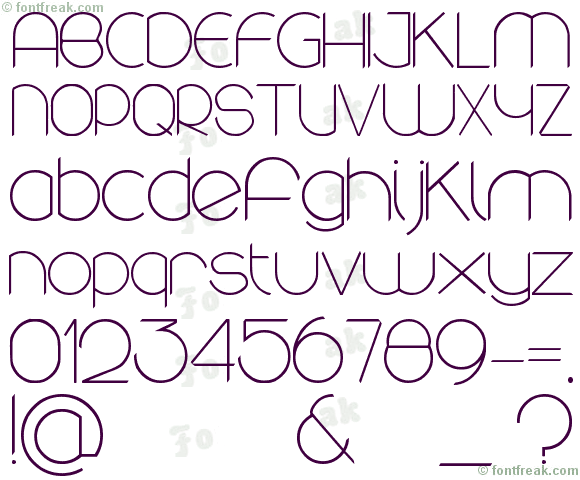
round
Discover the "round" font by Fran Board, a versatile typeface that effortlessly combines modern aesthetics with a friendly appeal. This sans-serif font, designed in 2009, is characterized by its soft, rounded edges and consistent stroke weight, creating a harmonious look that is both approachable and professional. The visual simplicity of the "round" font is enhanced by its minimal contrast and spacious letterforms, making it legible and easy to read at various sizes.
Ideal for a range of applications, the "round" font is perfect for branding your company, crafting engaging restaurant menus, designing eye-catching posters, or creating memorable wedding invitations. Its contemporary style resonates well with graphic designers and small business owners looking to establish a distinctive identity. Content creators will also find this font a valuable addition to their toolkit, as it adds a touch of warmth to any digital or printed material.
What truly sets the "round" font apart is its versatility and charm. The soft curves and balanced proportions make it suitable for both playful and serious contexts, appealing to a wide audience. Whether you are launching a new product line or designing a personal project, this font brings a unique touch that can elevate your work. With its freeware license, the "round font free download" option allows users to easily incorporate this stunning typeface into their projects without the burden of licensing fees. Embrace the friendly character of the "round" font and let it enhance your designs with its inviting presence, making your projects stand out in today’s competitive landscape.